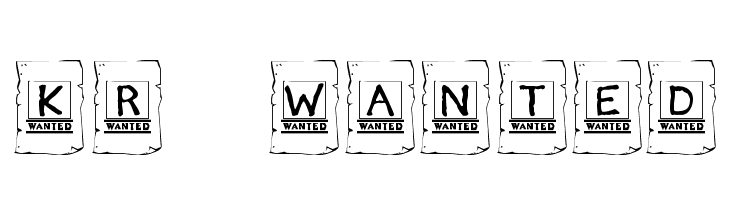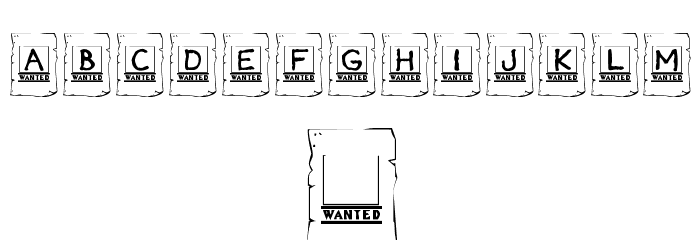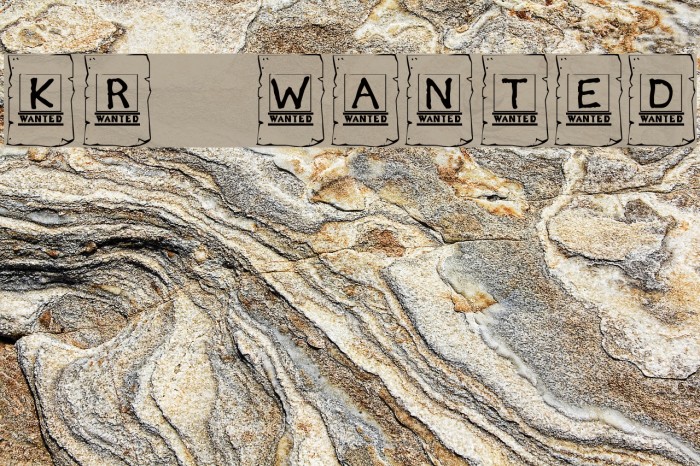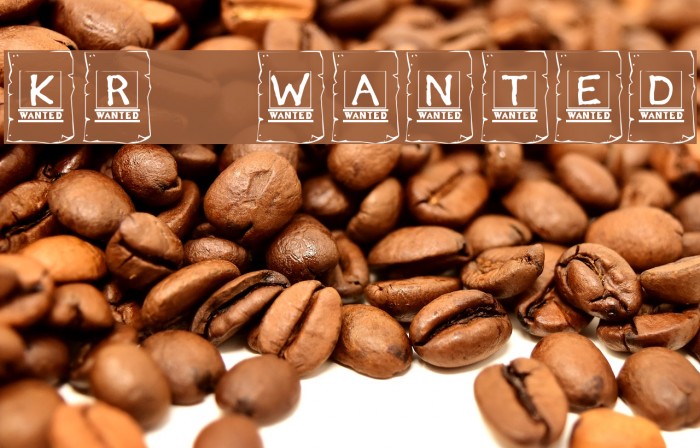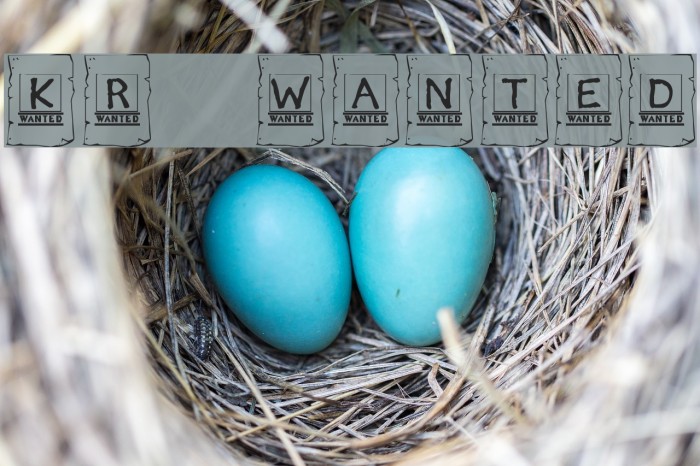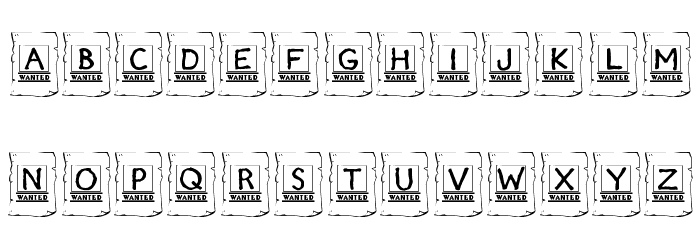
KR Wanted! Font
This font features a bold, decorative style reminiscent of old Western wanted posters. Each character is enclosed within a torn paper-like border, adding a rugged and vintage feel. The letters are uppercase, with a strong, blocky appearance that commands attention. The design is consistent across all characters, maintaining a uniform look that enhances its thematic appeal. The font's unique presentation makes it ideal for projects that require a touch of nostalgia or a Western theme.
A bold, decorative font styled like vintage wanted posters.
• Proposed Projects: Perfect for Western-themed posters, event invitations, or themed restaurant menus.
• Category: Decorative/Display
• Bold: Yes
• Italic: No
• Weight: Bold
• Width: Normal
• Character Spacing: Normal
• Contrast: Low
• Overall Style: Vintage
• Use Case: Headlines, Logos